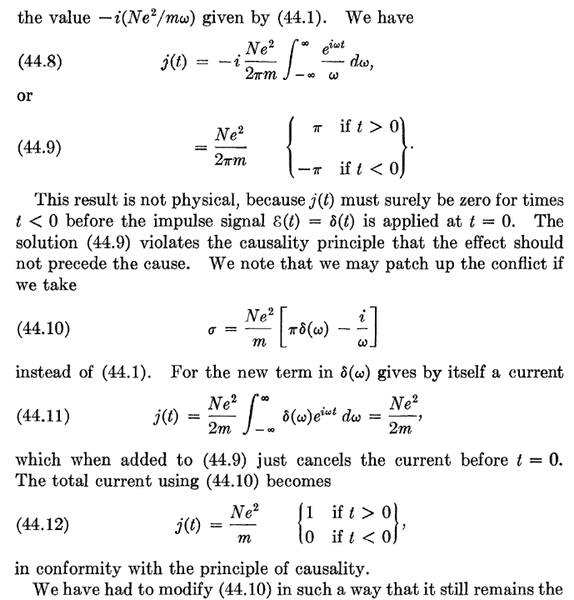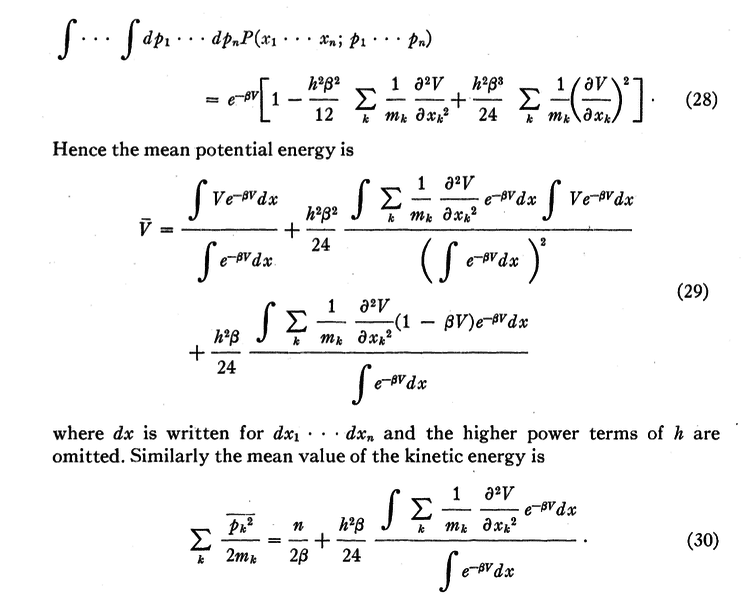
Old mathematics fonts, names and availability?
I was recently looking through some old physics papers (from 50s and 60s) and really enjoyed the way their equations looked.
Does anyone know if these Greek and mathematical symobl fonts are available?
What are they called?
Would you mind posting some examples so that we may have some sort of reference to go by?
Examples. Page from 1956 Elementary Statistical Physics by Kittel and 1930 Article by Wigner.
The math is really clean.